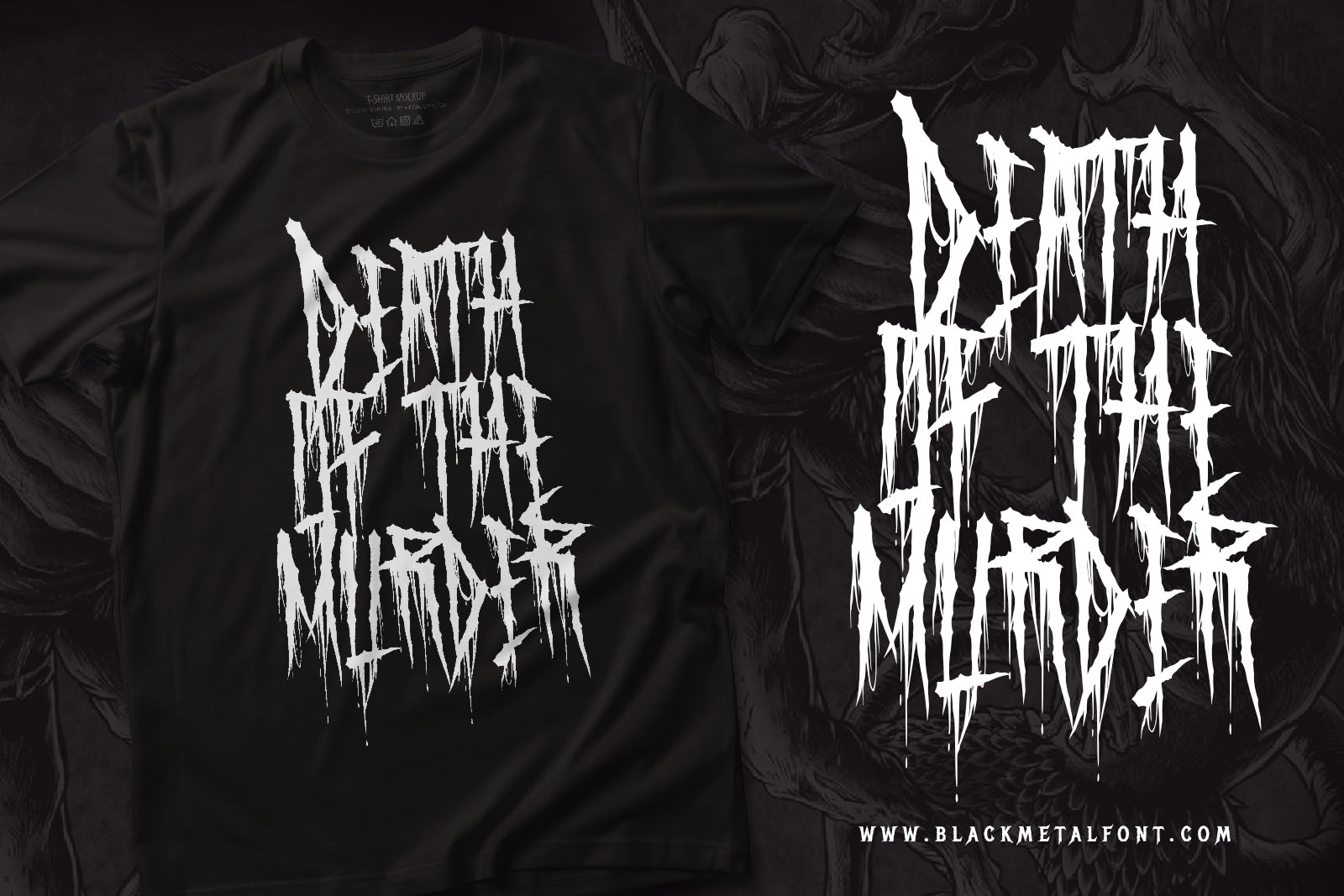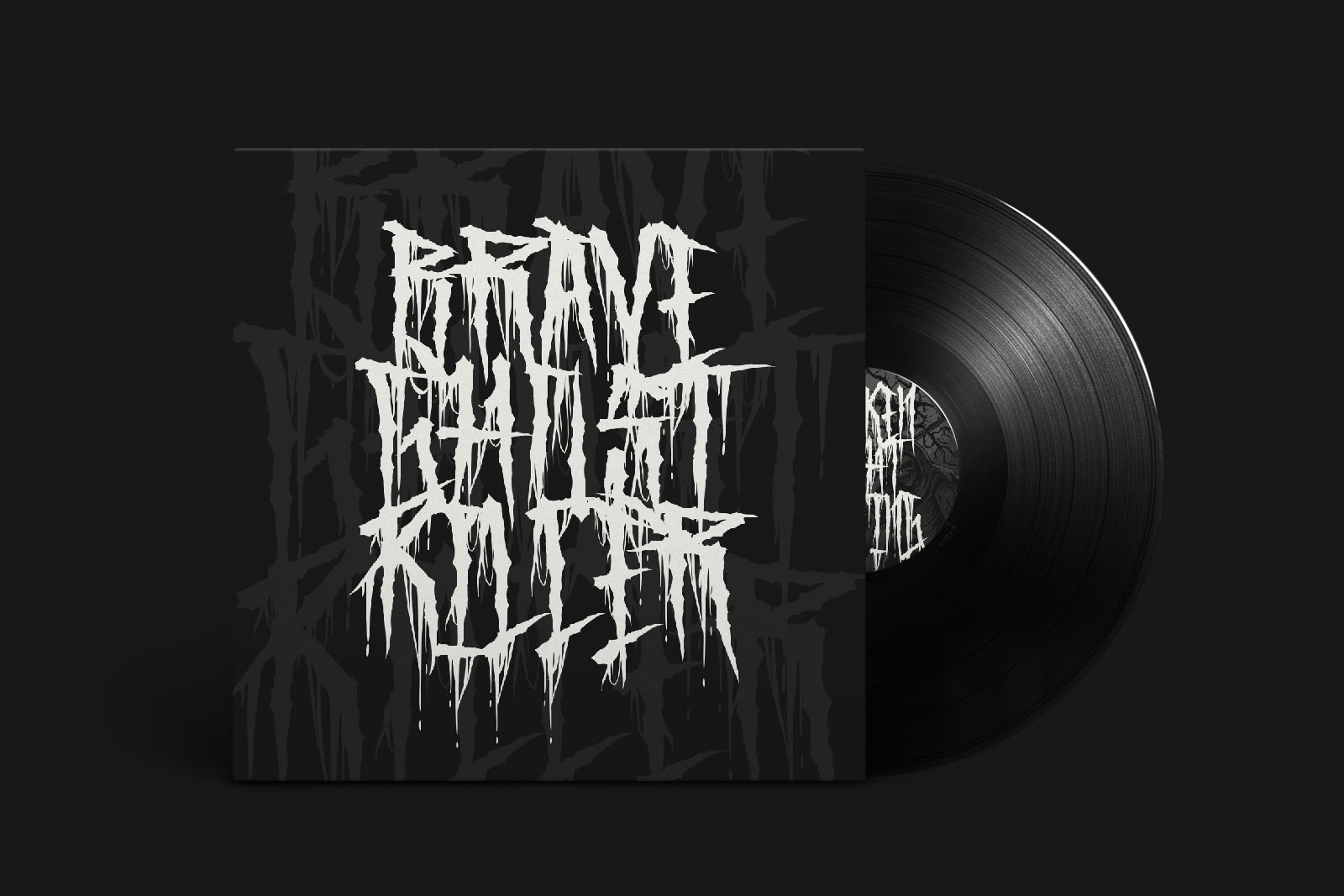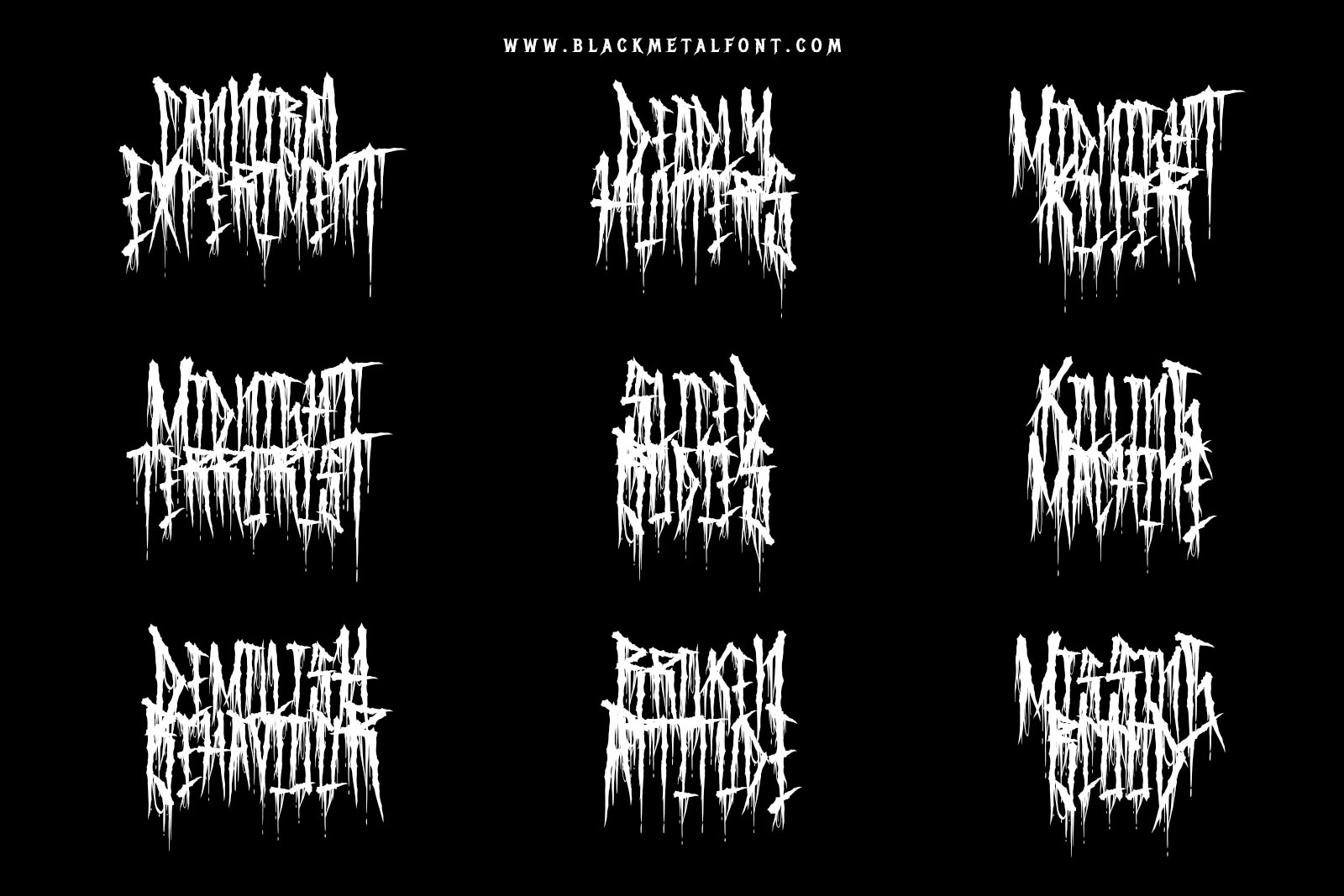
Hollow Death
Hollow Death is awesome horror font. Comes with Uppercase and lowercase characters. This font is great for any gore/metal/brutal design purposes. Hollow Death is awesome for your logo, your band, for merchandise, for clothing, and movie title/poster